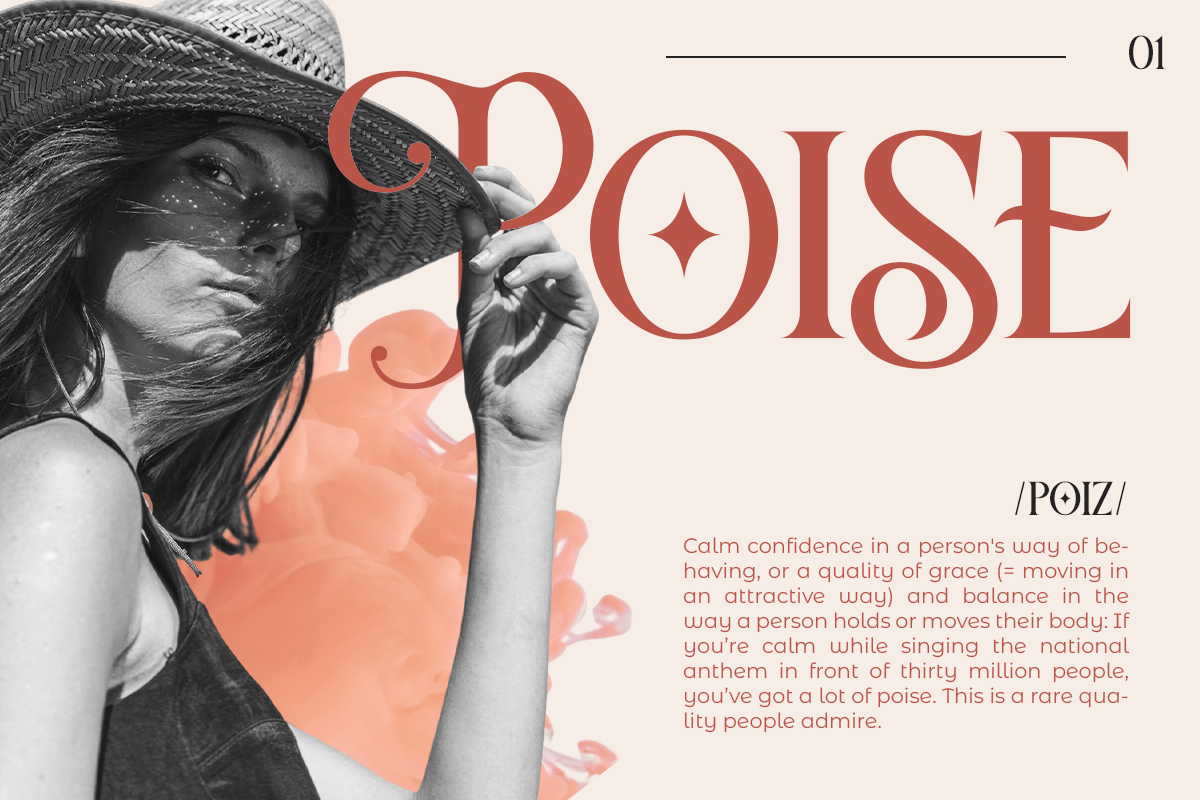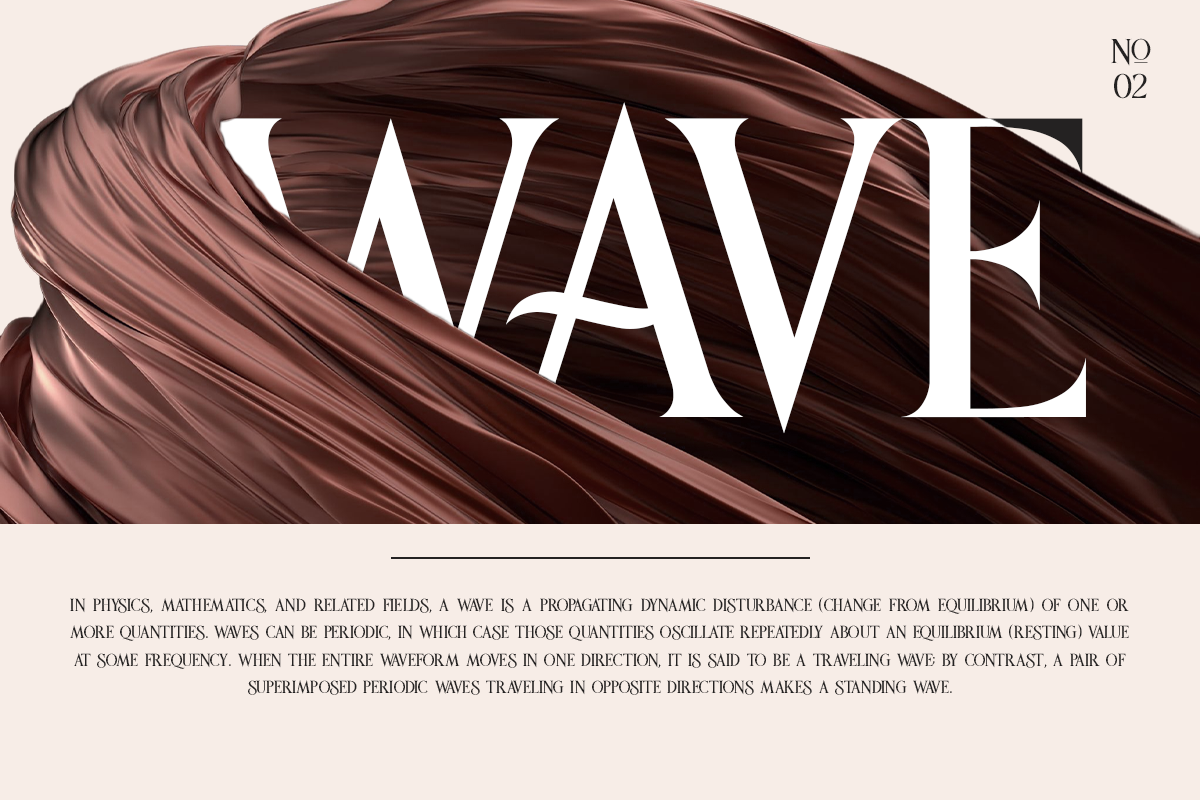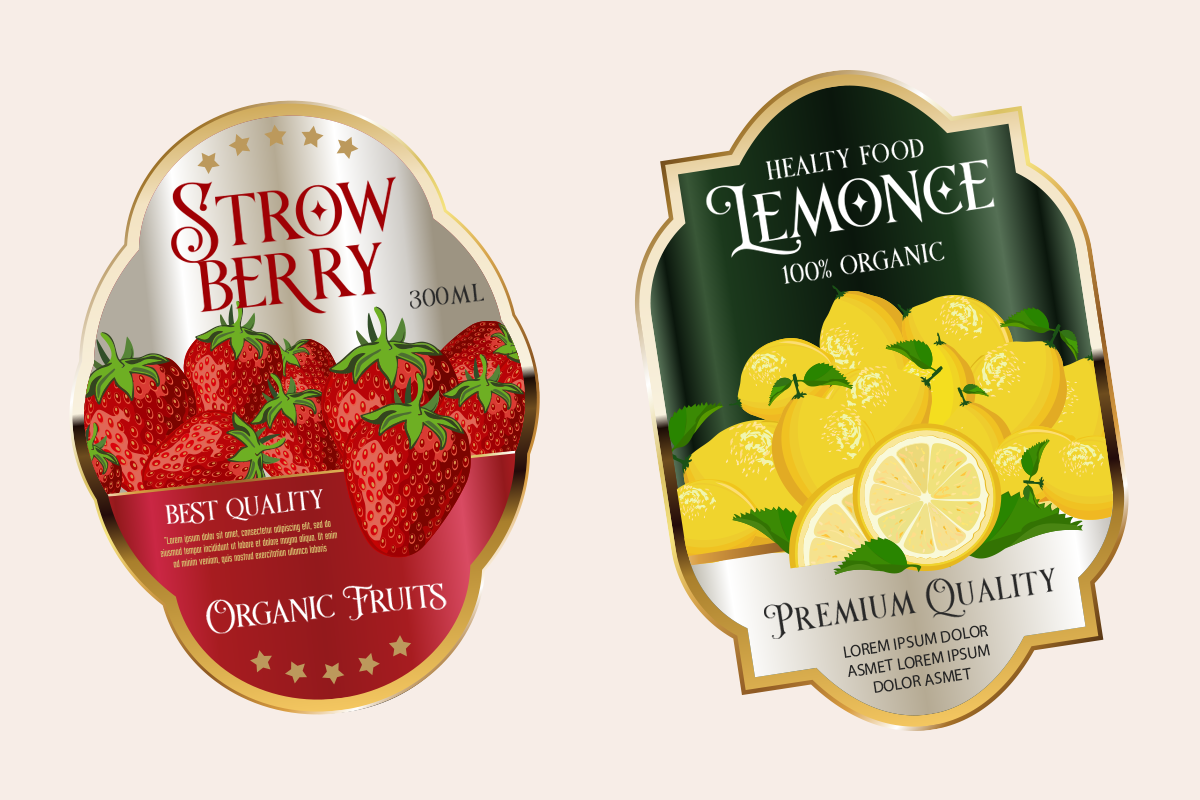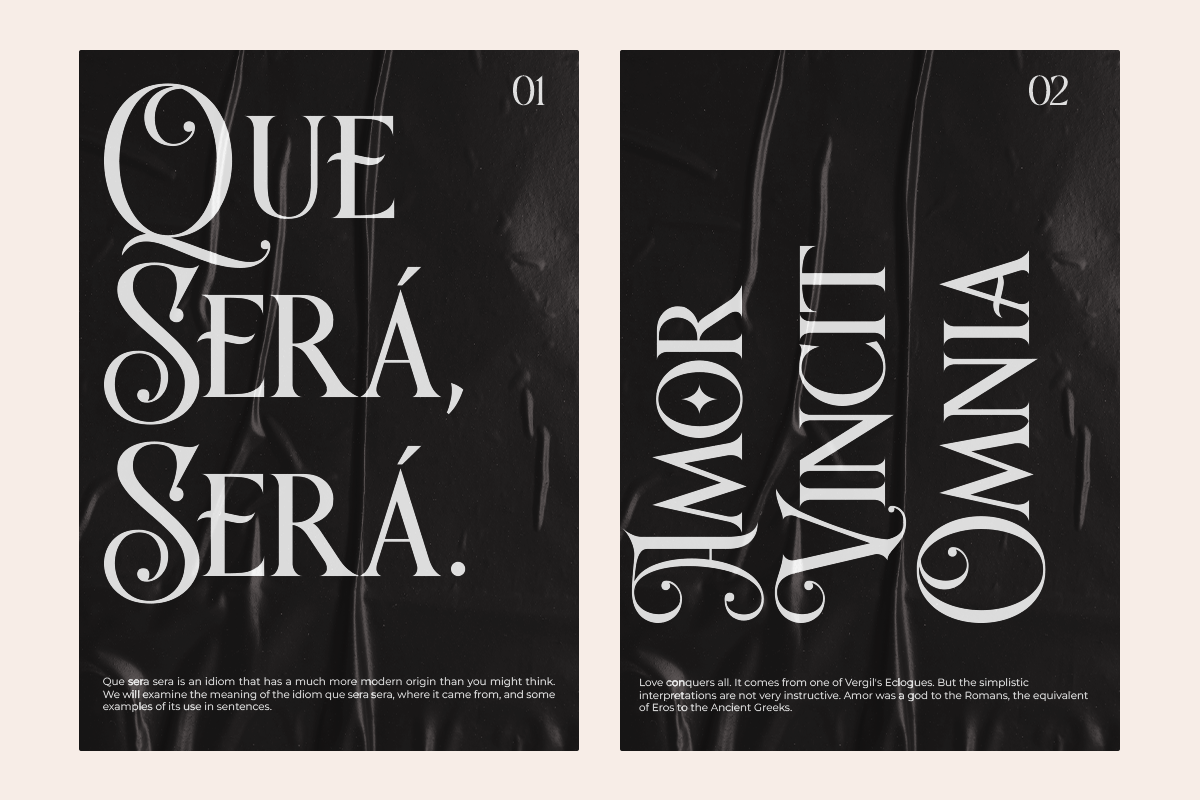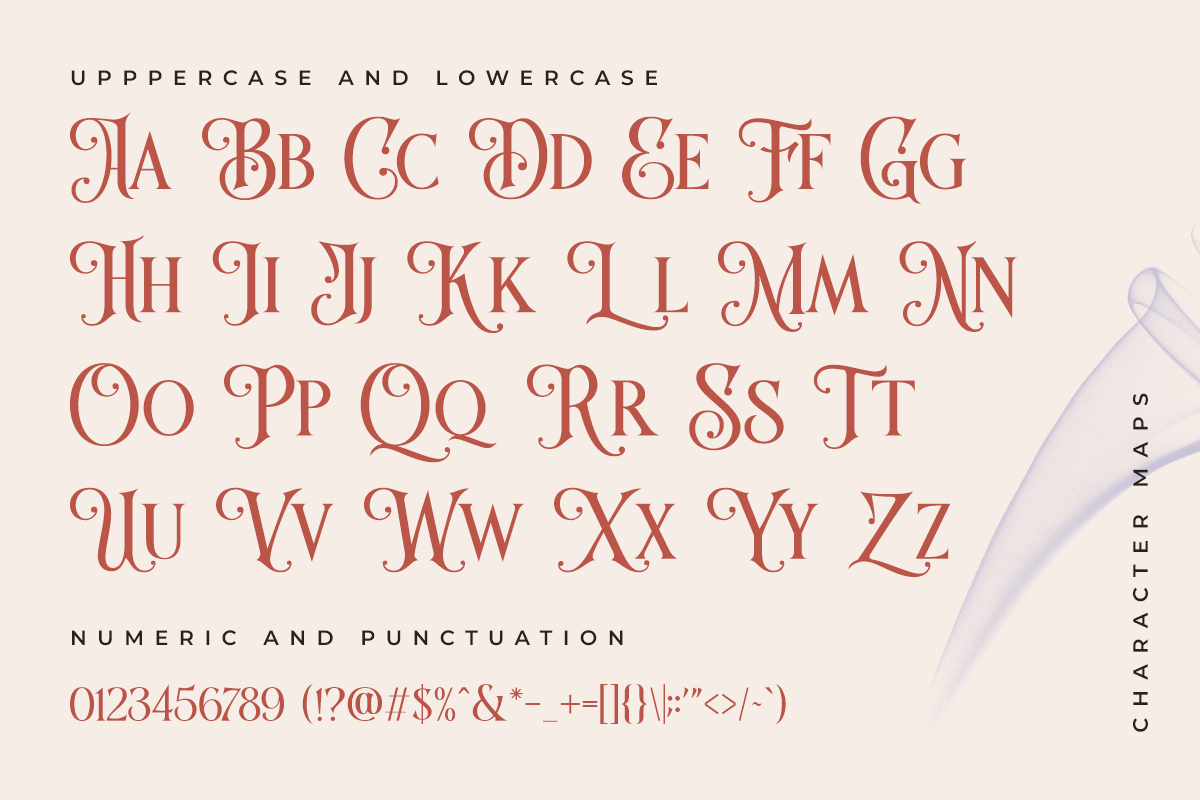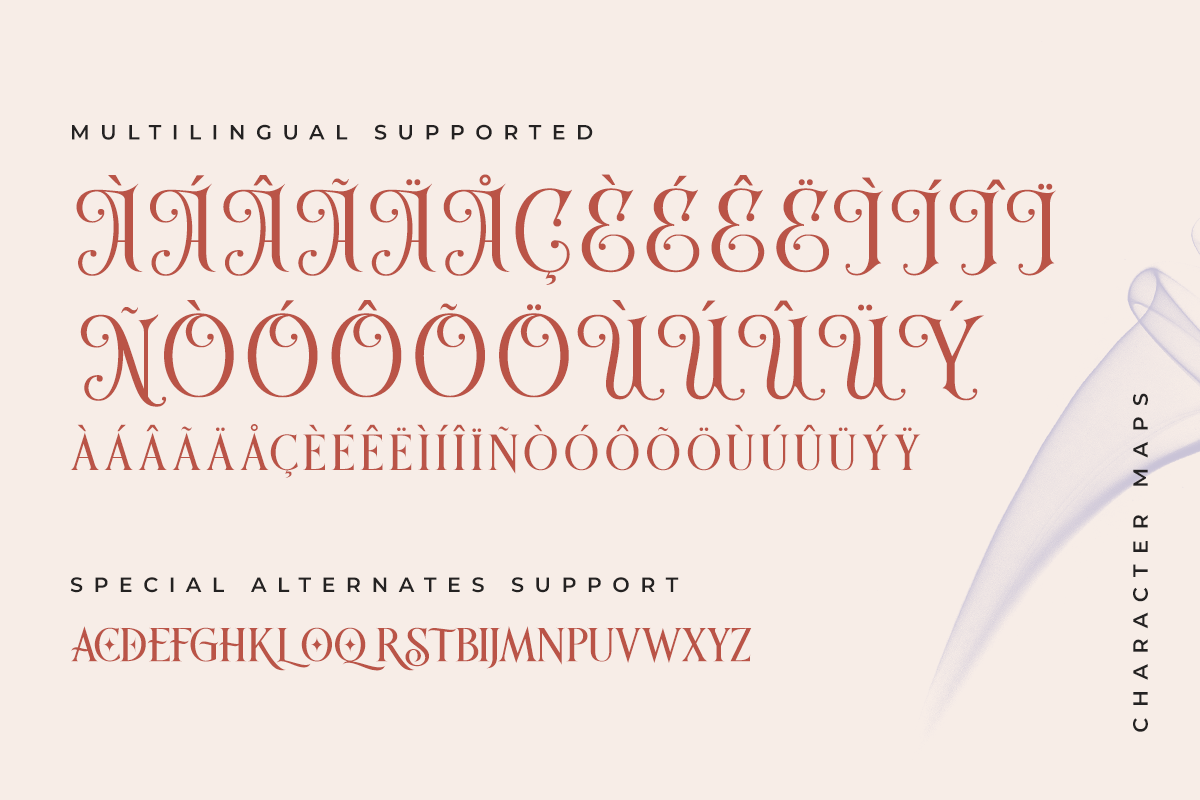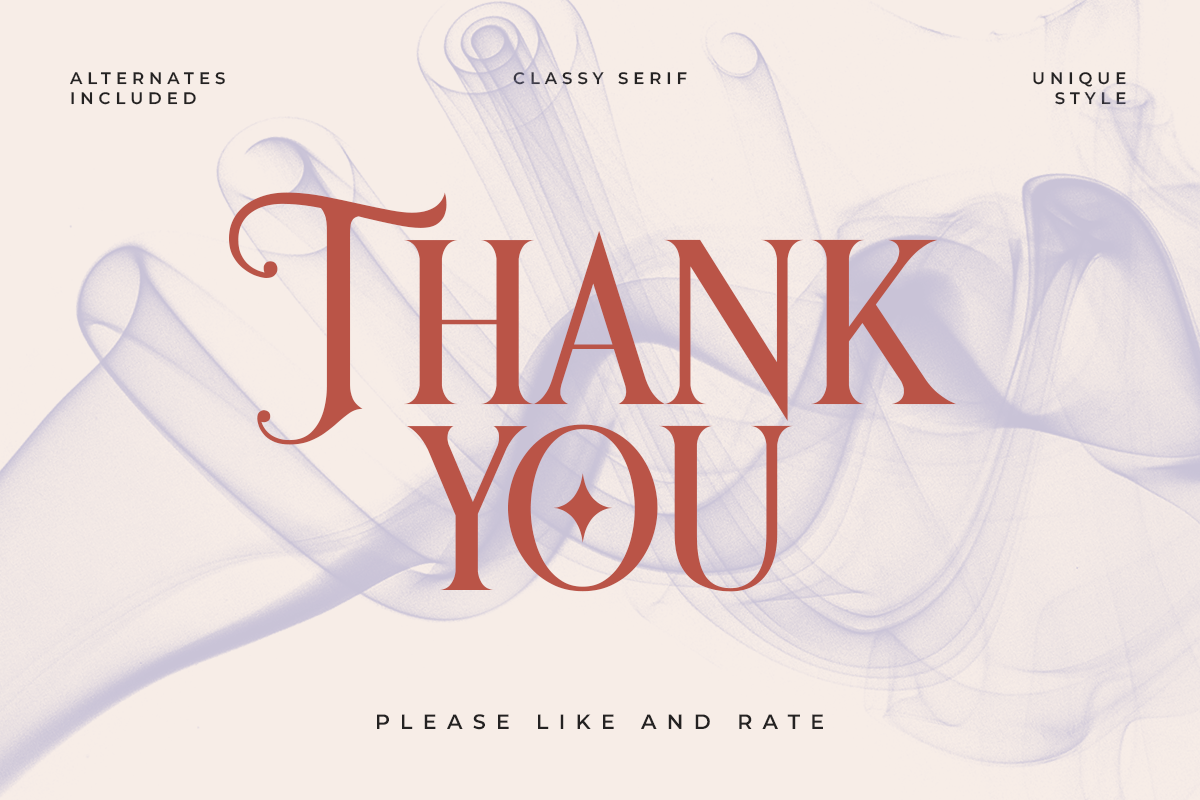
Stone Crusher Serif Decorative Font There are so many different types of serif fonts available as options for all of us. Stone Crusher Serif Decorative Font is one of the fonts that come with a modern, unique, and elegant look. This impression is what makes this font different from other serif fonts. The Stone Crusher font has a general font shape that is bold but has a long curved serif and rounded edges. This font can be distinguished between letters easily. It can be read clearly from afar or near. This font is legible. Stone Crusher Serif Decorative Font can use a digital and print font. The character of this font makes it one of the best fonts that have high compatibility when used for branding invitations, fashion, book titles, business cards, posters, and many others. The application of this font must pay attention to the font size and theme. The elegant impression in Stone Crusher Serif Decorative Font will make the product combined with this font have a high aesthetic value. It will look modern and attractive. With the presence of this font, it is hoped that it can increase your choices for serif font lovers in choosing the appropriate font for the object you are going to mix. Our collection of serif fonts is compatible for use as; Figma fonts, Canva fonts, Freepik Fonts, and Adobe Fonts. They also work as Windows Fonts and Apple Fonts. For your social media needs, you can use and install fonts in our collection of serif fonts to use as Instagram Fonts, Facebook Fonts, and Twitter Fonts.